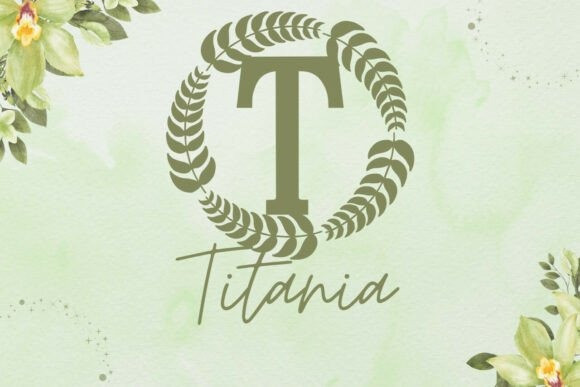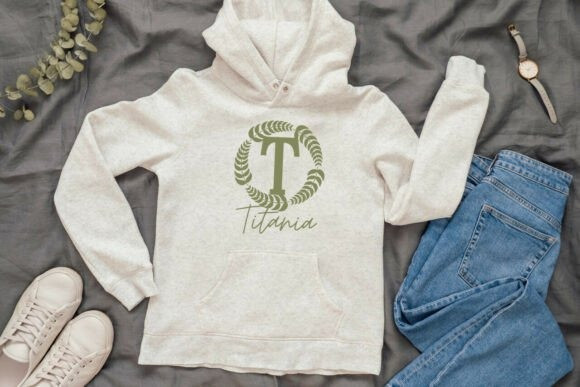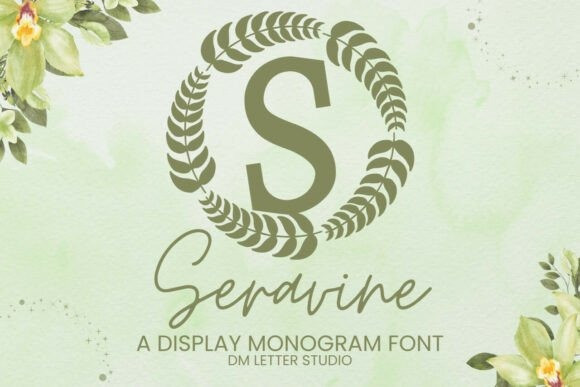
Seravine Monogram Font
Seravine Monogram Font turns simple initials into polished emblems that read fast. Lines feel smooth and poised. Curves stay open, so tiny tags still look crisp. Use it for wedding suites, boutique logos, keepsake gifts, and premium packaging. Moreover, Seravine pairs beautifully with soft serifs and modern sans, which keeps layouts elegant without extra effort.
Where the Monogram Font shines
Set single, double, or triple initials for logos, seals, and submarks. Then frame them with laurel rings, oval borders, or fine rules to echo the graceful structure. Since proportions favor symmetry, compositions come together in minutes. As a result, your thumbnails stand out and your listings stay consistent across products. Plus, Seravine scales smoothly from jewelry cards to venue signage.
Fast setup, polished results
Design tips for Seravine Monogram Font
Keep initials large and let white space breathe. Pair the headline monogram with a quiet serif or humanist sans. Meanwhile, add micro shadows, a thin inner stroke, or a delicate frame for depth. Because the letterforms feel airy, metallic accents and textured papers raise perceived value. However, keep copy short so the monogram remains the hero.